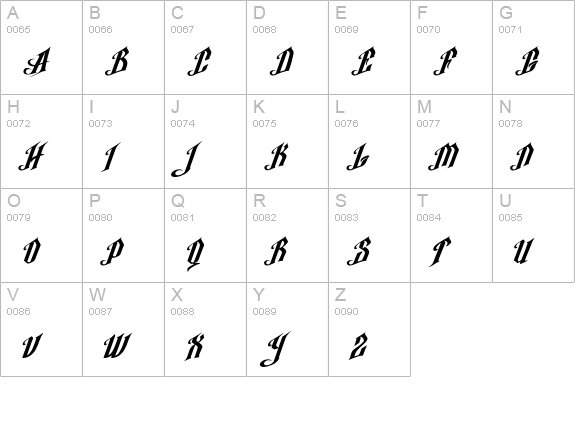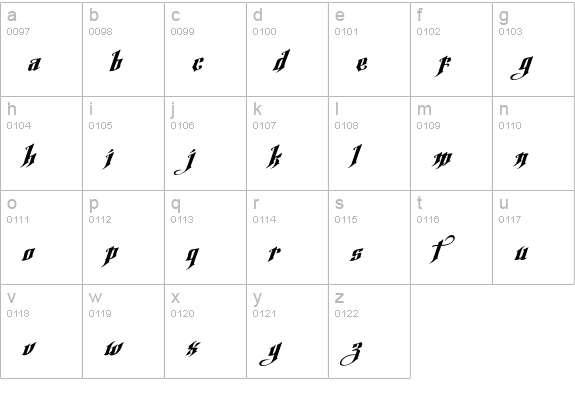
Argel Font is a stunning typeface that combines classic elegance with a modern twist. This font is perfect for adding a touch of sophistication and style to any design project. With its clean lines and graceful curves, Argel Font is versatile and can be used for a variety of purposes, from logos and branding to editorial designs and web graphics. What sets Argel Font apart is not only its exceptional design, but also the fact that it is freely available to download at FontsMarket.com. This means that you can easily access this incredible font without any cost, making it an invaluable resource for designers on a budget or those looking to experiment with new typography styles. Whether you're a professional designer or a hobbyist, Argel Font is a must-have in your font collection. Its timeless beauty and effortless legibility make it suitable for a wide range of projects, while its availability as a free download ensures that it is accessible to all. So why wait? Enhance your designs with the elegance and versatility of Argel Font today, and let your creativity shine.